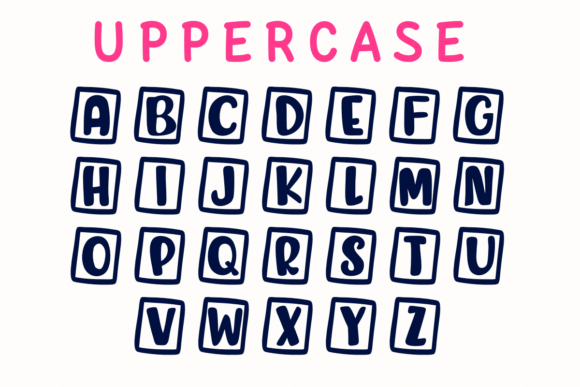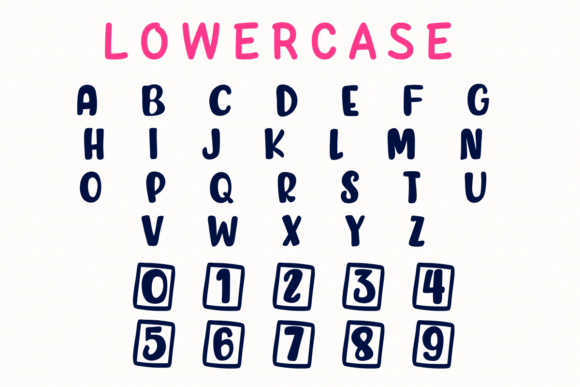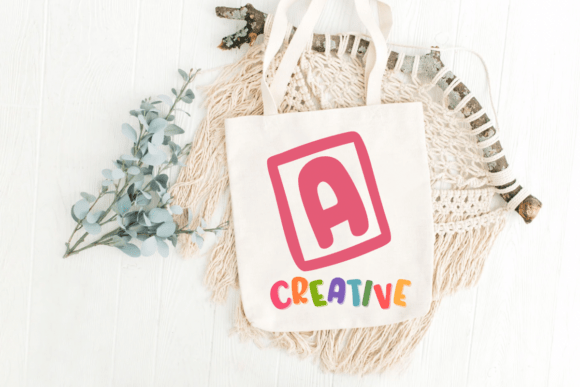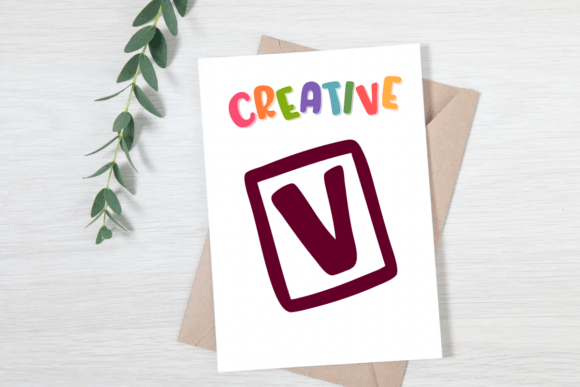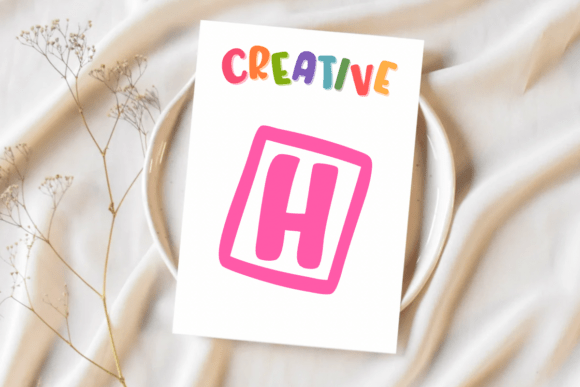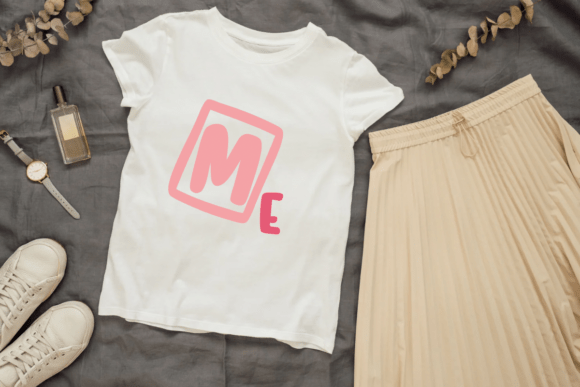
Unleash Playful Charm with Cute Creative Decorative Fonts
Are you looking for a font that can add a dash of playful charm and vibrant color to your designs? Look no further than the Cute Creative Decorative Fonts! This delightful font bundle is a two-in-one visual treat that is sure to bring a smile to your face. With its clean, bouncy hand-drawn font and secondary hand-script, this font is perfect for a variety of projects, from children’s education materials to playful party decorations.
A Font that’s Full of Personality
The primary Cute Creative font is a chunky, delightful display typeface that exudes pure childhood fun and boundless energy. Each letter is uniquely nestled inside colorful, rounded blocks, giving it a playful and whimsical feel. This font is instantly engaging and easy to read, making it perfect for designs that need to capture the attention of a young or lighthearted audience.
A Two-in-One Font Bundle
One of the best things about the Cute Creative font bundle is that it includes two fonts in one. The primary font is a clean, bouncy hand-drawn font with letters nestled inside colorful blocks, while the secondary font is a hand-script that is perfect for accents. This allows you to add an extra layer of creativity and personality to your designs, and to mix and match the two fonts to create a unique look.
The Cute Creative font is ideal for a wide range of projects, including:
- Children’s education materials: The playful and colorful design of this font makes it perfect for educational materials, such as worksheets, activity sheets, and textbooks.
- Playful party decorations: Add a touch of whimsy and fun to your party decorations with this delightful font. Use it to create banners, invitations, and other party materials.
- Unique product branding: If you’re looking for a way to make your product stand out, the Cute Creative font is a great choice. Use it to create a logo or packaging that is sure to grab attention.
- Fun social media graphics: Add a dash of personality to your social media graphics with this playful font. Use it to create eye-catching posts, ads, and other graphics.
- Crafting cute logos: The Cute Creative font is perfect for creating logos that are playful, fun, and engaging.
Why Choose the Cute Creative Font?
So why choose the Cute Creative font for your next project? Here are just a few reasons:
- Unique and playful design: This font has a one-of-a-kind design that is sure to grab attention and add a touch of personality to your designs.
- Easy to read: Despite its playful design, this font is easy to read, making it perfect for designs that need to communicate a message.
- Versatile: The Cute Creative font can be used for a wide range of projects, from children’s education materials to playful party decorations.
- Dynamic and colorful: This font is highly dynamic and colorful, making it perfect for designs that need to stand out.
Tips for Using the Cute Creative Font
Here are a few tips for using the Cute Creative font in your designs:
- Experiment with colors: One of the best things about this font is its colorful design. Experiment with different colors to find the perfect combination for your project.
- Mix and match with other fonts: The Cute Creative font can be paired with other fonts to create a unique look. Try mixing and matching it with other playful fonts to add some personality to your designs.
- Use it sparingly: While the Cute Creative font is playful and fun, it can be overwhelming if used too much. Use it sparingly to add a touch of personality to your designs.
| Font Name | Cute Creative Font |
The Cute Creative font is a delightful and playful font that is perfect for designers and crafters who want to add a dash of personality to their designs. With its unique and playful design, easy readability, and versatility, this font is ideal for a wide range of projects. Whether you’re creating children’s education materials, playful party decorations, or unique product branding, the Cute Creative font is sure to bring a smile to your face and a touch of whimsy to your designs.